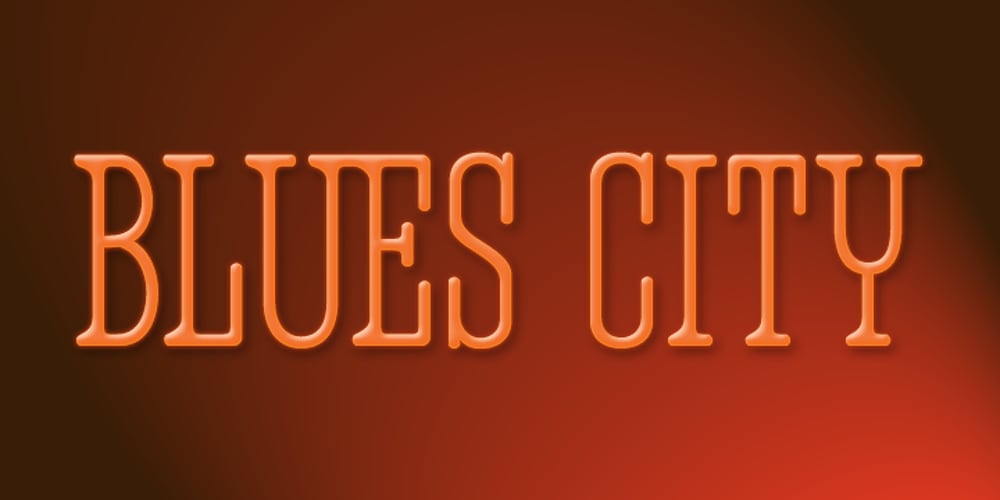
Blues City
Blues City font
Blues City Font Family was designed by Alec Julien and published by Haiku Monkey. Blues City contains 1 styles and family package options. Inspired by neon signage, Blues City is a display font you can sink your teeth into. The font features hundreds of ligatures, along with a full complement of diacritical characters. Put some neon blues into your designs!